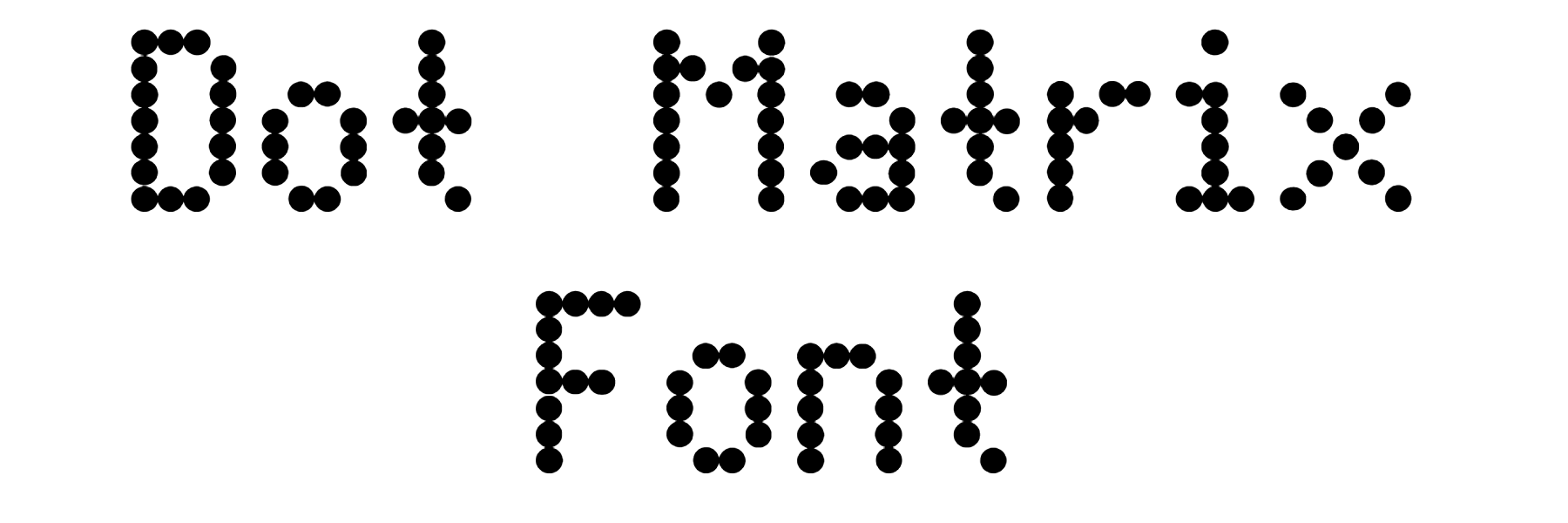
Dot Matrix
Dot Matrix is a techno font. Squared-off, geometric letters give it a digital, high-tech feel. You get two styles in one free ZIP, and the preview above lets you test each one before you download.
What You Can Type With Dot Matrix
Dot Matrix covers the full alphabet in upper and lowercase, plus all ten numbers, so you can set names, dates and prices without switching fonts. Common punctuation such as &, !, ? and @ is included as well. It has 8 accented letters, but not the full set for Spanish or French, so test any non-English words first.
Where Dot Matrix Works Best
Designers usually reach for fonts like Dot Matrix when they're making gaming logos, tech branding and futuristic posters. The file has no kerning data, so in logos and big titles check pairs like AV, To and Wa and tighten the spacing by hand. Try it on a dark background with a bright accent color for a sharp, modern look. Because the family has more than one style, you can mix them in a single design for headings, subheadings and highlights.
What fonts pair well with Dot Matrix?
A simple sans serif like Roboto keeps longer text easy to read next to it.